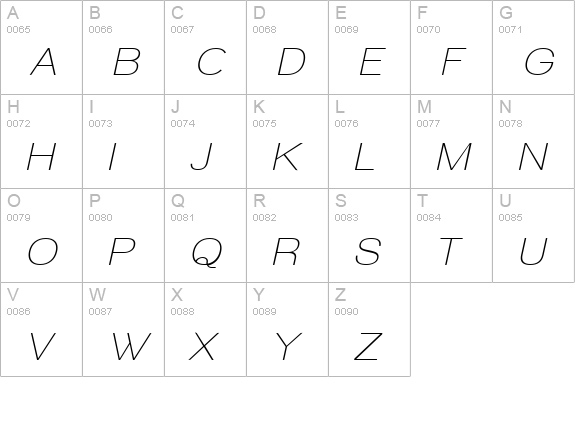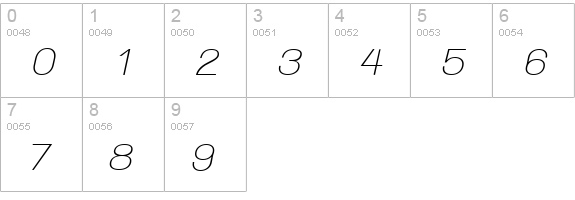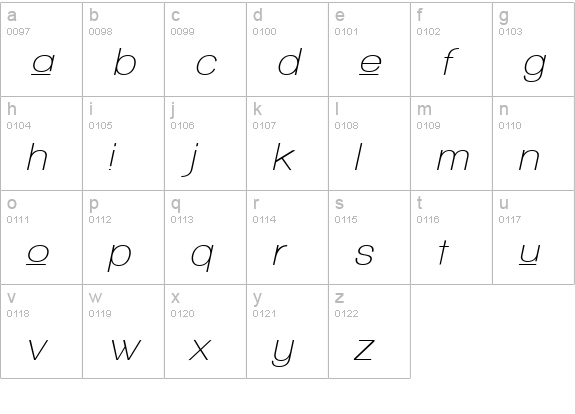
Walkway Upper Oblique SemiBold is a sub-bold, structured, italic variant in the Walkway typeface family \xE2\x80\x94 well suited to sub-headlines and emphasised passages.
Walkway Upper Oblique SemiBold is a modern and stylish font that exudes confidence and sophistication. With its sleek lines and elegant curves, this font is perfect for adding a touch of class to any design project. Whether you're creating a sleek logo, eye-catching poster, or professional business card, Walkway Upper Oblique SemiBold is sure to make a statement. What's even better is that this font is available for free download at FontsMarket.com, making it accessible to anyone looking to elevate their design game without breaking the bank. Don't miss out on the opportunity to add this versatile and visually appealing font to your collection today!